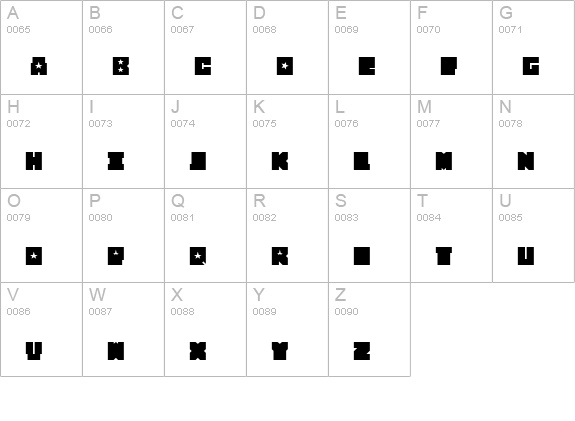
FourJuly Font Details
Introducing FourJuly font, a versatile and charismatic typeface that perfectly captures the essence of celebration and patriotism. With its bold and eye-catching design, FourJuly is ideal for adding a touch of festivity to your projects, whether it's for Independence Day events, party invitations, or any design that calls for a touch of flair. This playful font features unique letterforms that exude a sense of fun and excitement, making it a standout choice for any creative project. Its versatility allows it to be used for headlines, titles, logos, and more, adding an extra dose of personality to your designs. Best of all, FourJuly font is available for free download at FontsMarket.com, making it easily accessible for all your design needs. Whether you're a seasoned designer or just starting out, FourJuly is sure to bring a touch of joy and creativity to your work. Download it today and let your imagination soar with this delightful and spirited font.